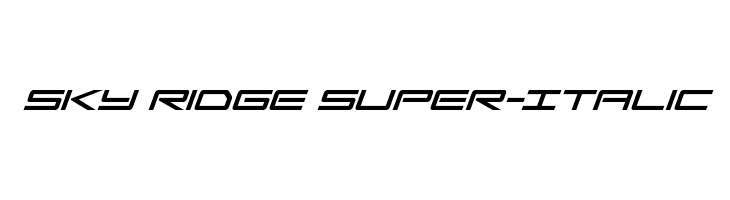
A sleek, futuristic italic font with sharp angles and high contrast.
A futuristic, geometric font with angular, structured letterforms.
A sleek, futuristic italic font with sharp angles and clean lines.